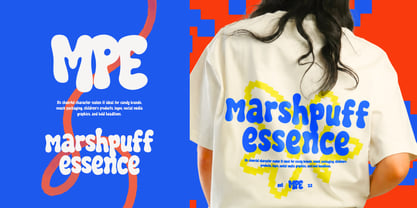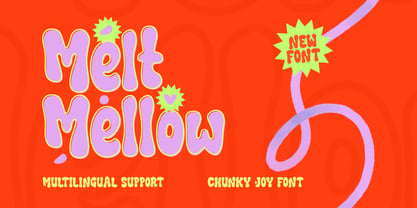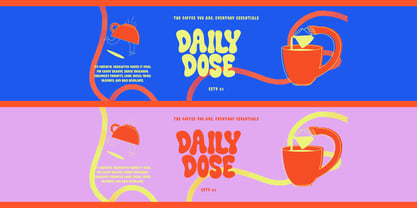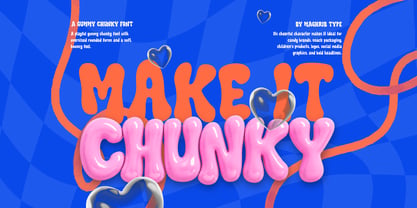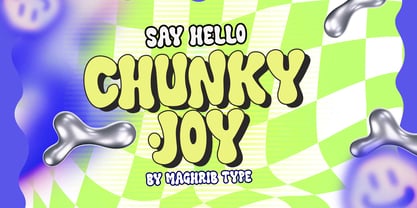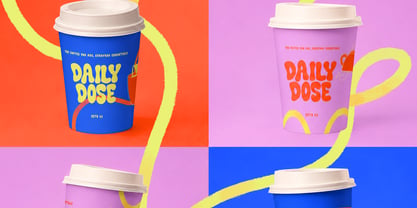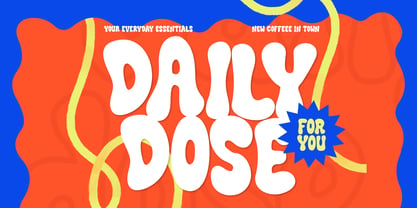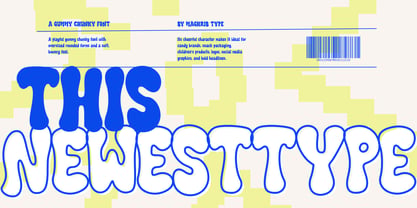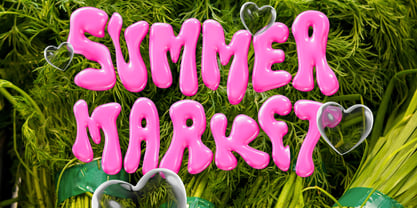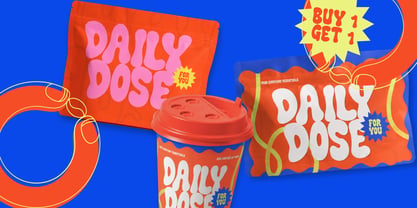
Chunky Joy
Chunky Joy is a bold hand-drawn bubble display font filled with playful energy and cheerful personality. Inspired by retro pop graphics, youthful branding, and organic hand lettering, it features soft rounded shapes that instantly create a fun, friendly, and approachable look.
Its chunky forms are perfect for oversized headlines, vibrant branding, packaging, posters, café identities, snack labels, children's products, social media content, and creative editorial work. The imperfect handcrafted details give every word warmth and authenticity while maintaining excellent readability.
Whether you're creating a joyful food brand, colorful packaging, or an eye-catching logo, Chunky Joy delivers a bold visual impact with a modern playful spirit.